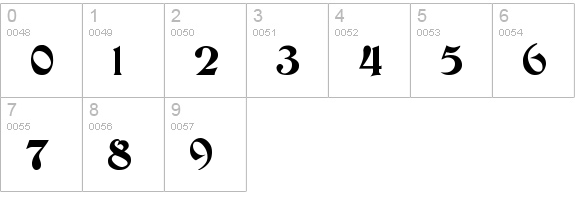
Columbo Font Details
Columbo font is a stylish and modern typeface that exudes sophistication and elegance. With its sleek lines and clean design, Columbo is perfect for adding a touch of class to any project. Whether you're designing a logo, creating a poster, or working on a website, Columbo font will make your text stand out. The best part? Columbo font is completely free to download at FontsMarket.com. This means you can easily access this versatile and eye-catching font without breaking the bank. So why wait? Add Columbo font to your collection today and take your designs to the next level.